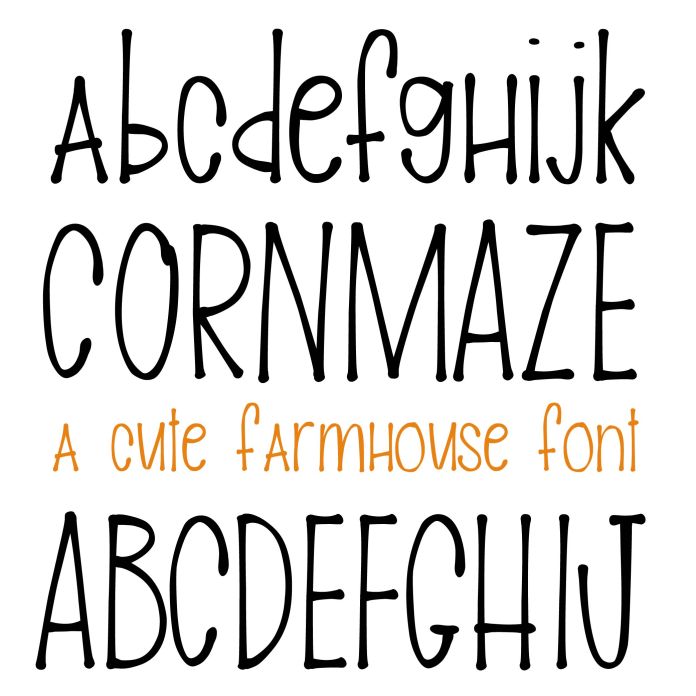
Cornmaze Farmhouse font is a cute handwritten typeface fun for Halloween and Autumn-themed designs. This font is ideal for creating festive graphics for invitations, posters, and social media posts. Includes alphabet, numbers, and punctuation.